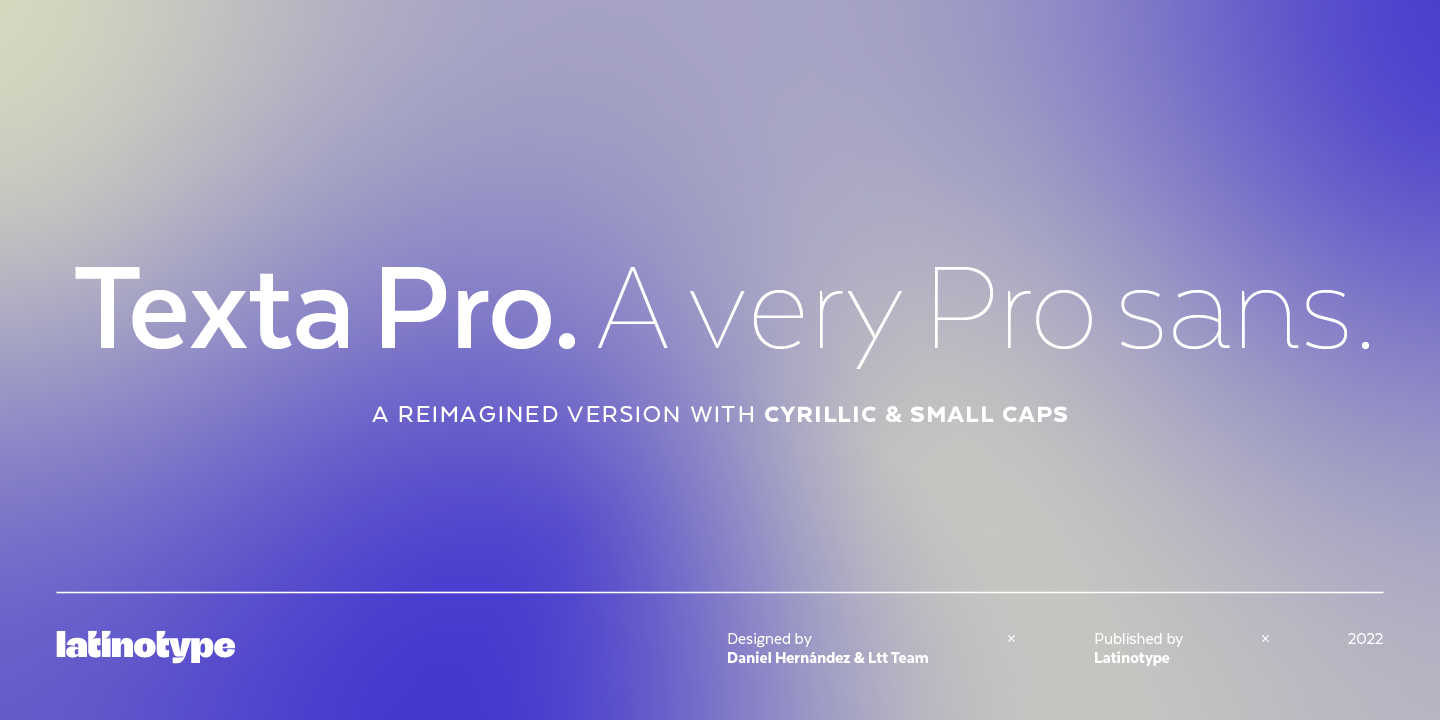
You can use Texta Pro Font in corporate branding, user interfaces (UI/UX), editorial layouts, tech startups’ visual identities, clean web design, mobile apps, and high-end presentations.
What makes this font exciting is its flawless balance between humanist warmth and geometric precision. It’s modern without being sterile, friendly yet professional—making it incredibly adaptable for both digital and print applications. It communicates clarity, confidence, and credibility.
Texta Pro Font includes an expansive family with over 8 weights—from Thin to Black—alongside Italics, Small Caps, and matching glyph sets. Whether you're designing body text for readability or crafting a striking headline, Texta Pro delivers with versatility and elegance.